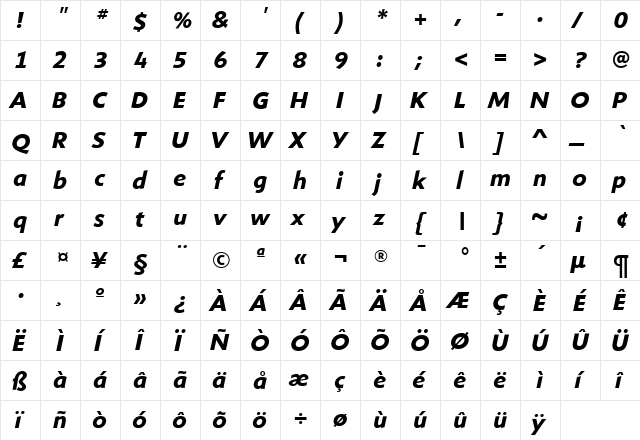
ShinnBoldItalic Regular
Design Context for ShinnBoldItalic Typeface
ShinnBoldItalic offers clean, dependable letterforms without strong stylistic allegiance, making it a practical choice for designers who need flexibility. Its italic angle brings a sense of urgency and motion to the letterforms. Its bold stroke weight gives it real presence on the page.
Pro Tip: Use ShinnBoldItalic for emphasis, pull quotes, and subheadings where its slanted energy can add rhythm to the layout.